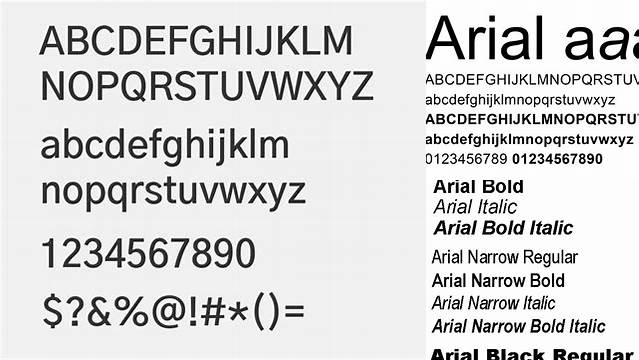
Arial Font Download Google Fonts: Your Comprehensive Guide
Welcome, font enthusiasts! If you're here, you're probably searching for the Arial font and how to get it from Google Fonts. Well, you've come to the right place! While Arial isn't directly available on Google Fonts (more on that in a bit!), this guide will walk you through everything you need to know about Arial, its alternatives, and how to incorporate them into your projects. We'll explore the nuances of font licensing, discuss the best Arial font download options, and provide tips for web design and typography. So, grab your favorite beverage, and let's dive in!
1. Understanding Arial: A Deep Dive
Arial is a widely recognized and commonly used sans-serif typeface. Created by Robin Nicholas and Patricia Saunders in 1982, it was initially designed by Monotype as a close match to the popular Helvetica font. This was primarily for use in IBM's laser printers. Over the years, Arial has become a staple in the world of typography, lauded for its clean lines, readability, and versatility. Its widespread adoption stems from its pre-installed availability on numerous operating systems, including Windows and macOS. This accessibility has contributed to its popularity across various applications, from document creation to website design. The font is designed with a neutral and straightforward appearance, making it suitable for various types of content, from body text to headlines. The typeface has been adapted and modified for different purposes over time, leading to several Arial variations, such as Arial Black (a bolder version for emphasis) and Arial Narrow (a condensed version for space-saving designs). Understanding the design features of Arial, such as its open counters and clear letterforms, is essential for appreciating its impact on visual communication. While it may seem like a standard choice, its subtle characteristics contribute significantly to its effectiveness. The choice of a typeface can also greatly impact a website's design. It is essential to find a font that complements the overall design. For example, if the website has an edgy design, Arial may not be the best font. It's better to choose a font that matches the website's design and tone. When choosing a font, it's important to consider several factors, including readability, character, and overall style.
1.1. The History and Evolution of the Arial Font
The story of the Arial font is intertwined with the history of technological advancements and the evolution of typography. In the early 1980s, the need for a Helvetica substitute arose due to licensing issues, which led Monotype to create Arial. From its inception, Arial was designed to be similar to Helvetica, providing an alternative option for users. Over time, minor differences in design have emerged, although they are often subtle. This similarity to Helvetica has played a significant role in its widespread acceptance and integration into various systems. The evolution of Arial includes the release of different weights and styles, like Arial Bold and Arial Italic. These variations give designers greater flexibility in their projects. Arial has also been updated to support various international languages and character sets, making it a global typeface. Throughout its history, Arial has been associated with various technological milestones, from laser printers to modern digital displays. This has ensured its continuous relevance in typography. The continued presence of Arial reflects its adaptability and the critical role it plays in visual communication. The font's adaptability is a testament to its design and its capacity to integrate into diverse platforms and environments. When the font was initially designed, it was not very popular. However, as the years went by, the font started gaining traction. The developers of the font made a couple of changes, and Arial began to grow and thrive in the industry. Now, the font is one of the most popular in the world. Its popularity is a testament to its design, simplicity, and adaptability.
1.2. Arial vs. Helvetica: Key Differences
While Arial and Helvetica may appear similar at first glance, there are subtle but notable differences between the two typefaces. Understanding these variations is key to informed design choices. The most significant differences often lie in the curves and the proportions of the letters. For example, the 'G' in Arial typically has a straighter spur than the 'G' in Helvetica. Additionally, the 'R' in Arial usually has a slightly curved leg, while Helvetica's leg is straighter. These differences can become apparent when comparing the fonts side by side. The weight and spacing of the fonts also vary slightly. Arial tends to be a bit wider than Helvetica, and the spacing between the letters can be slightly different. These variations affect the overall visual impression of the text. Despite these differences, Arial was designed to be a practical substitute for Helvetica, especially where cost was a concern. Because of the close similarities, Arial can often be used as a direct replacement for Helvetica without significantly affecting the design. The decision to choose between Arial and Helvetica often comes down to preference, the specific design requirements, and the availability of the font. Designers often take into account the context of the design. For example, in digital design, both fonts work perfectly well. However, when it comes to print design, the choice may change. It all depends on the specific design and the goals of the designer. The most crucial consideration is how well the font communicates the message. Ultimately, the choice between Arial and Helvetica reflects a designer's awareness of their visual nuances.
2.2. Finding Alternatives to Arial on Google Fonts
Since Arial isn't available on Google Fonts, the best approach is to find suitable alternatives. Several fonts on Google Fonts offer similar aesthetics and readability, perfect for replacing Arial in web design. Open Sans is a popular and highly versatile option. Designed by Steve Matteson, Open Sans is a humanist sans-serif font that is known for its clear and open letterforms. Its clean, modern appearance makes it suitable for body text and headlines. Lato is another excellent choice. Designed by Łukasz Dziedzic, Lato offers a friendly yet professional look, with semi-rounded letterforms that provide visual warmth and readability. Roboto, designed by Christian Robertson, is a modern sans-serif font with geometric shapes and a friendly, approachable style, also a good choice for digital interfaces. To identify the best alternative, consider the specific characteristics of Arial that you need to replicate. Do you need a clean, simple look, or something with a bit more character? Look for fonts with similar x-heights, character widths, and overall visual weight. When browsing Google Fonts, you can use filters and preview tools to compare different fonts side by side. Experiment with how the fonts appear in different sizes and weights to determine which one best suits your design needs. Choosing an alternative should involve evaluating the font's readability, its compatibility with your brand's identity, and its technical suitability for web use. Look for fonts with a broad range of weights and styles to provide flexibility in your design. Once you find a suitable alternative, you can integrate it into your website using the standard methods provided by Google Fonts. Using an alternative means that you can create a website that looks professional without needing to buy the Arial font. Also, there are a variety of free fonts available on Google Fonts. The variety allows you to choose the font that best suits the overall look of your website. Choosing the right font can make a huge difference in a website's design.
3. Implementing Arial Alternatives in Your Web Design
When you're unable to use Arial directly from Google Fonts, implementing alternative fonts is a practical and effective approach. The process typically involves the following steps. First, browse Google Fonts and select the alternative font that best suits your design needs (such as Open Sans, Lato, or Roboto). After selecting your font, you'll need to embed it in your website. Google Fonts provides an easy-to-use code snippet, which you can copy and paste into your HTML's <head> section. This code will load the font from Google's servers. You can also download the font and host it on your own server. Then, you will need to apply the selected font to the desired elements on your website. You can do this using CSS by specifying the font-family property. For example, body { font-family: 'Open Sans', sans-serif; }. The sans-serif part provides a fallback font if Open Sans isn't available. It is important to carefully choose the fonts used on your website and ensure they represent your brand and vision. It is also important that the font is easy to read to create a better user experience. Be sure to test your website on different devices and browsers to ensure that the font renders correctly across all platforms. You should also be mindful of performance. The best fonts are lightweight and load quickly. Slow loading times can affect the user experience. When implementing your alternative font, consider its overall look and how it fits in with your website's design. You can easily test the website and test the different elements to find the perfect match. By using the above-mentioned methods, you can get the look and feel of Arial without using the actual font. Using these fonts provides you with flexibility and freedom to design and create professional designs without using any paid tools.
3.1. Step-by-Step Guide to Embedding Fonts from Google Fonts